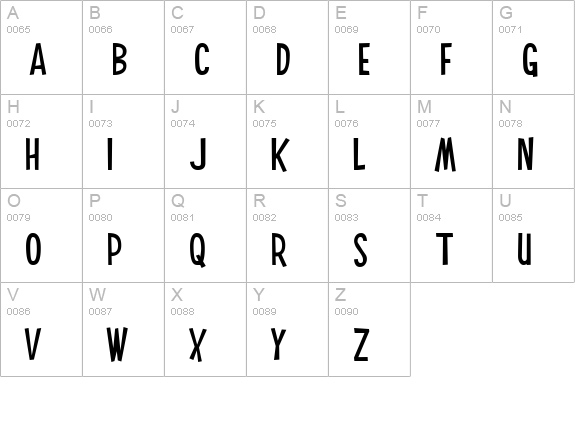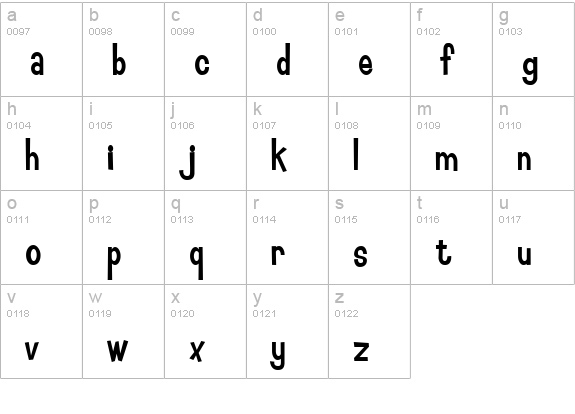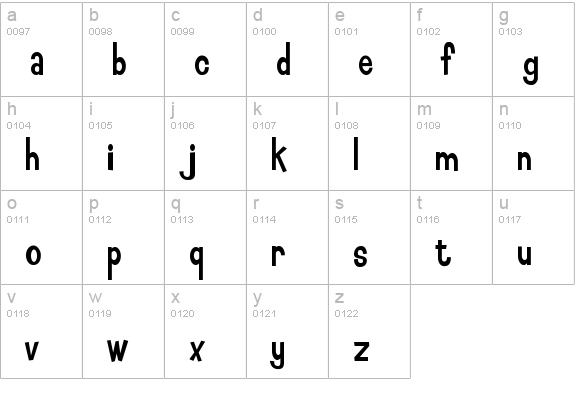
Smilage Font Details
Introducing Smilage, a captivating and versatile font that will leave a lasting impression on any project it graces. With its elegant curves and modern charm, this font effortlessly combines sophistication with a touch of playfulness, making it perfect for a wide range of design purposes. Whether you're creating eye-catching logos, sleek branding materials, captivating social media posts, or stunning website designs, Smilage is the font that will take your creations to the next level. Its unique and distinct letterforms add a sense of personality and character to your work, allowing your message to stand out from the crowd. But what sets Smilage apart from other fonts is its generous nature. Yes, that's right - this incredible font is absolutely free! Designed with the intention of making quality design accessible to all, Smilage can be freely downloaded at FontsMarket.com. Now, you have the opportunity to bring your creative visions to life without any constraints or limitations. With Smilage, you'll have the freedom to experiment and explore various design possibilities. Its extensive character set includes uppercase and lowercase letters, numerals, punctuation marks, and special symbols, providing you with all the tools you need to make your designs truly unique. So why wait? Unleash your creativity and let Smilage be the missing piece that elevates your design to new heights. Download this extraordinary font today, available exclusively at FontsMarket.com, and embark on a design journey that is sure to leave a lasting impression.